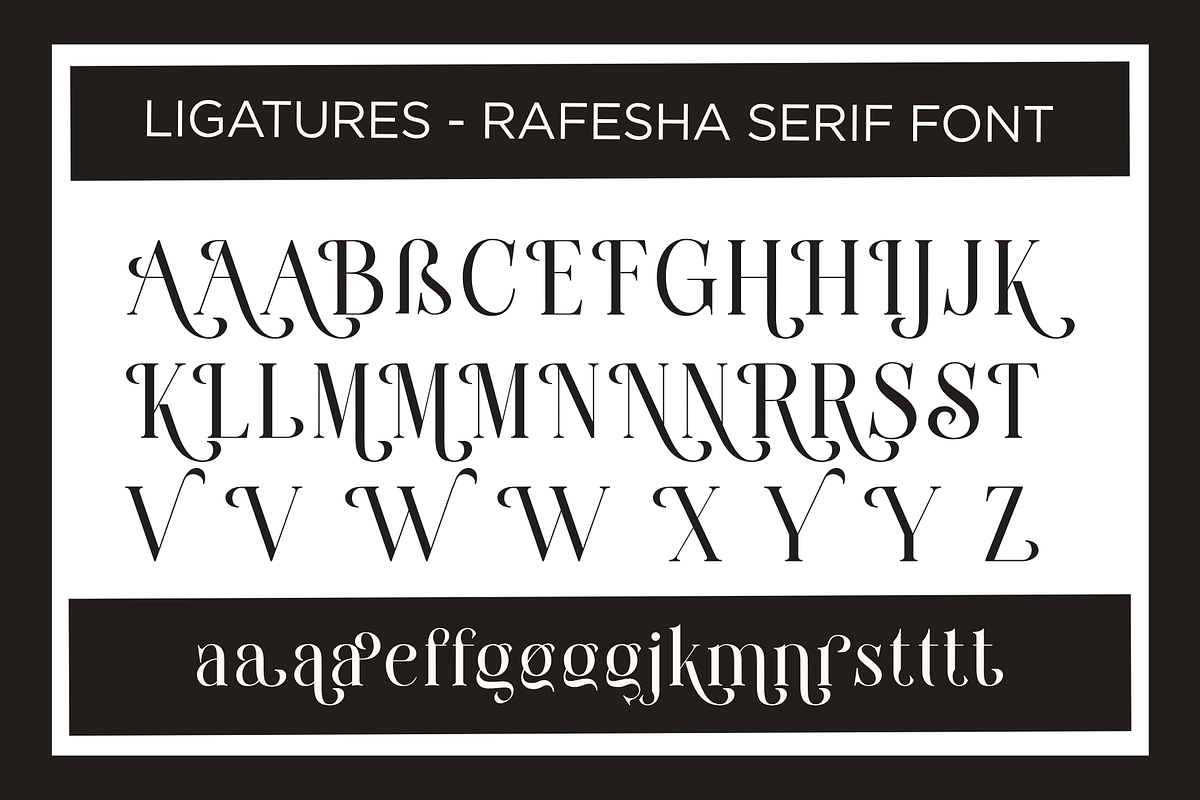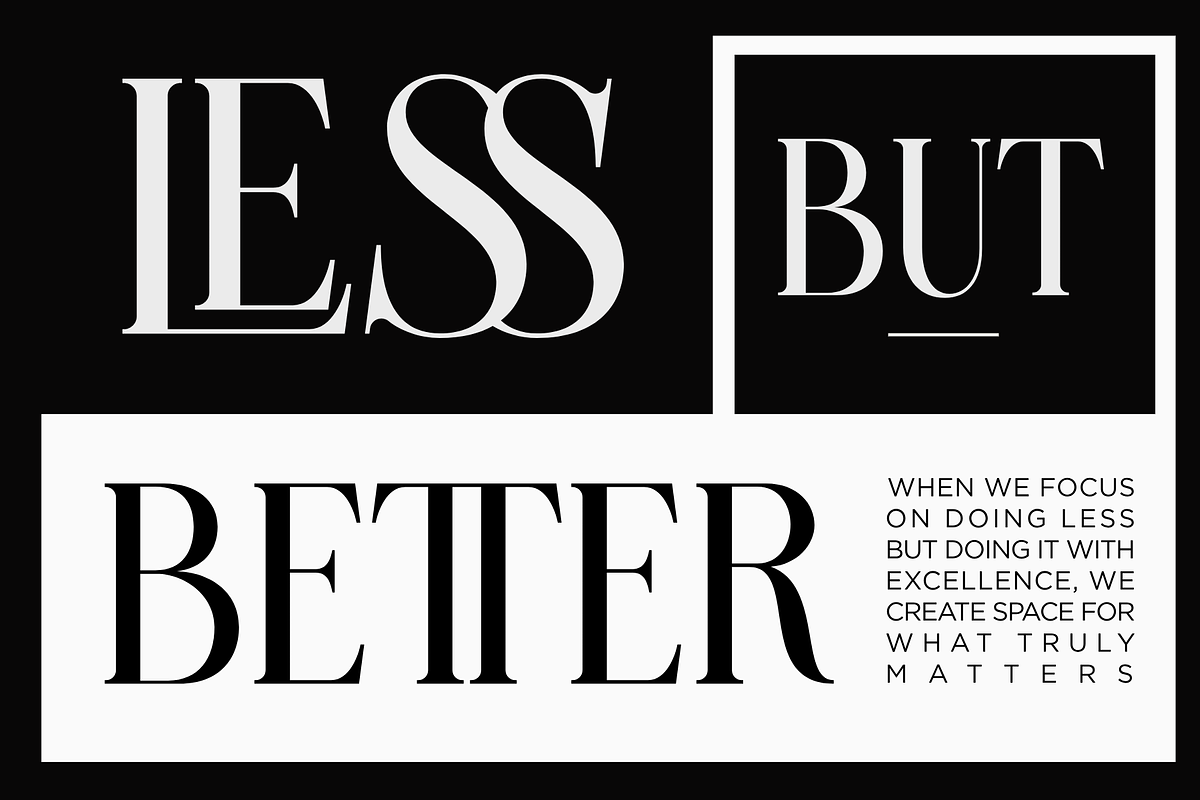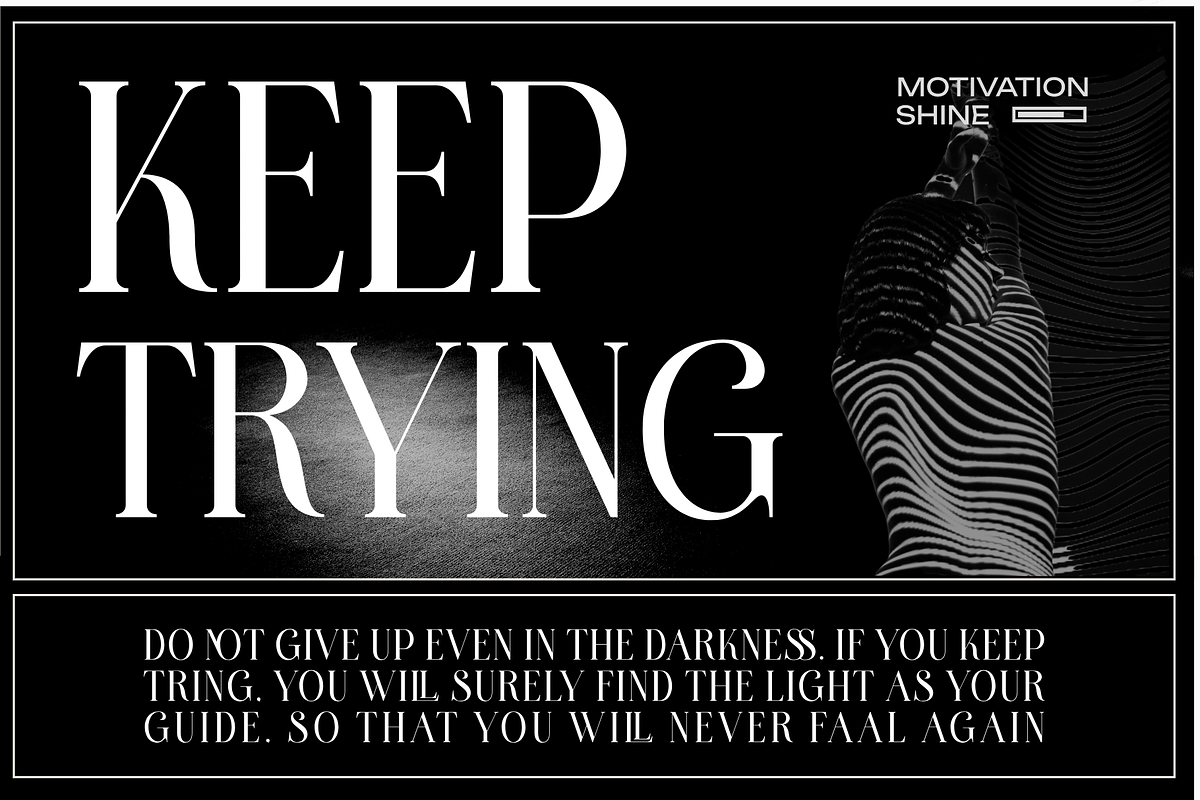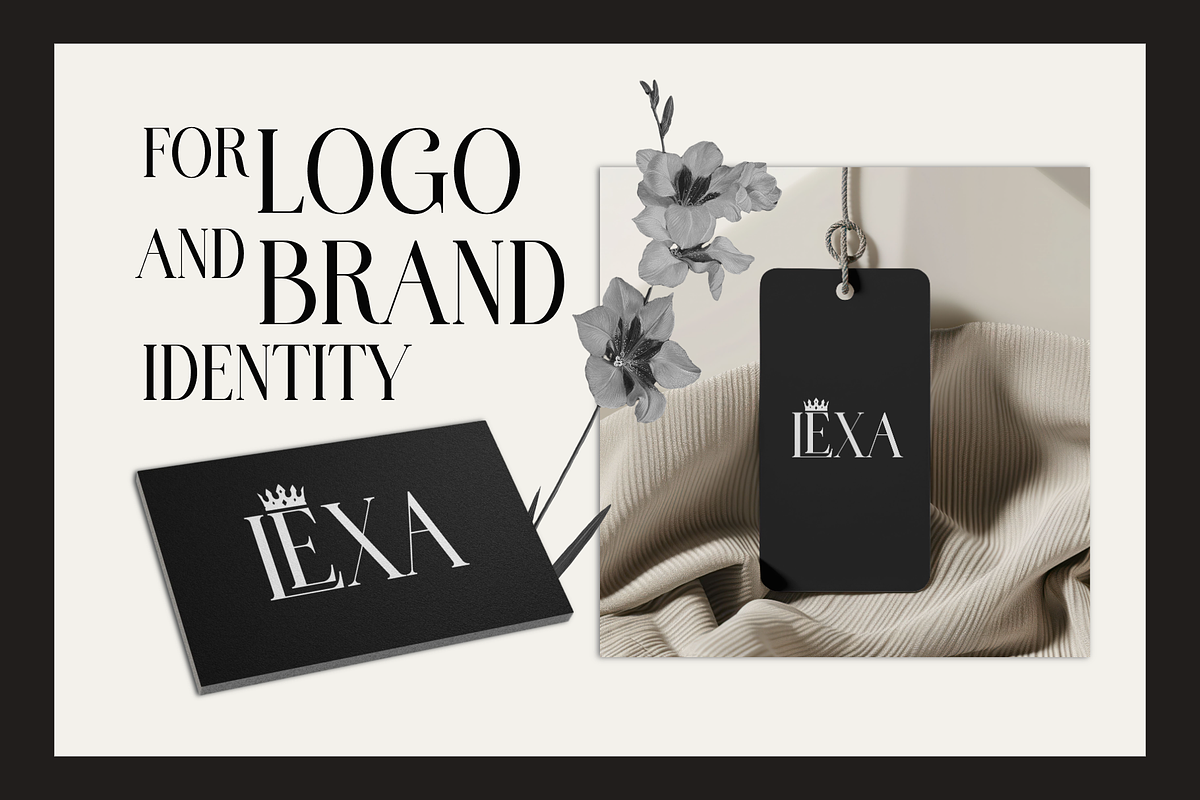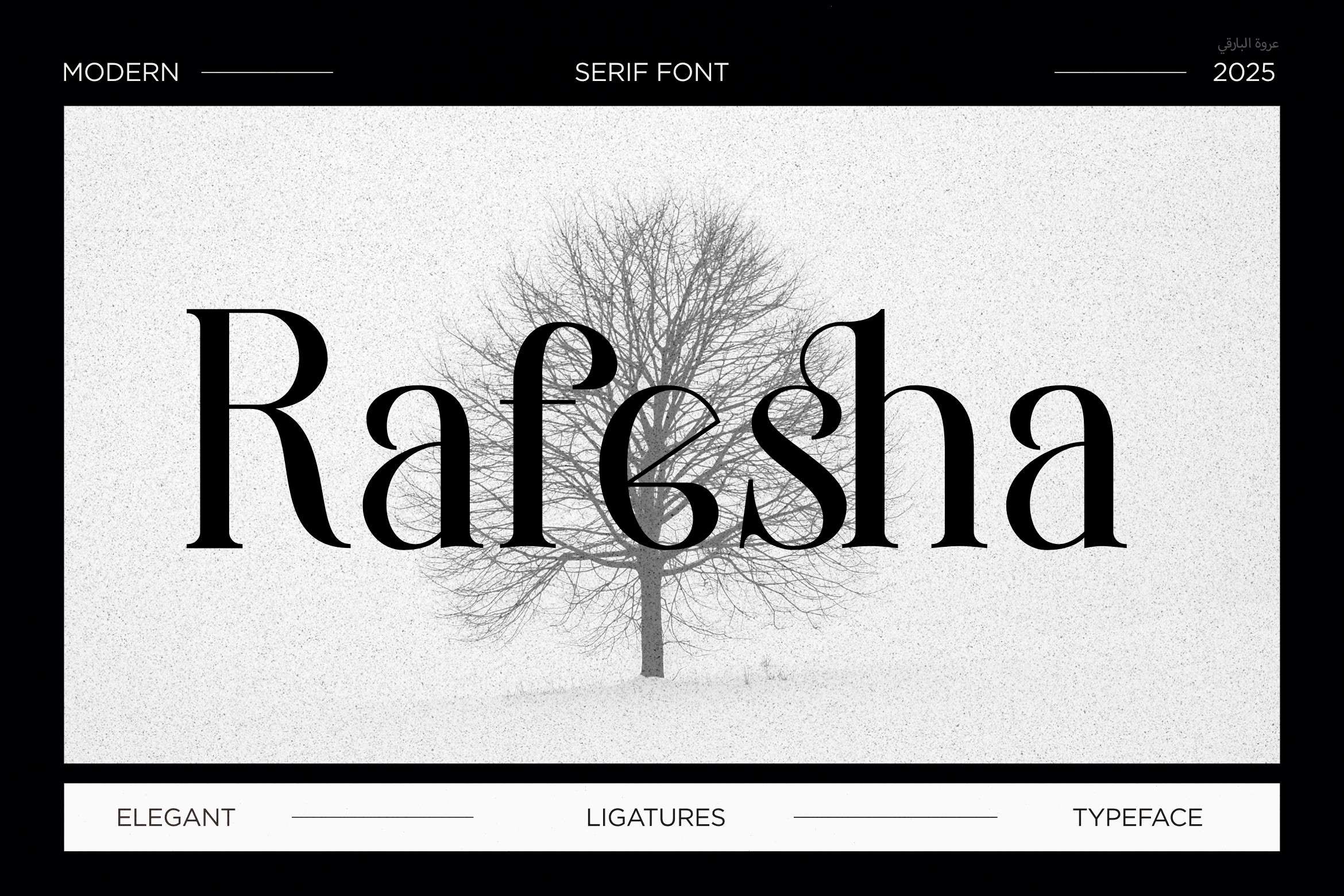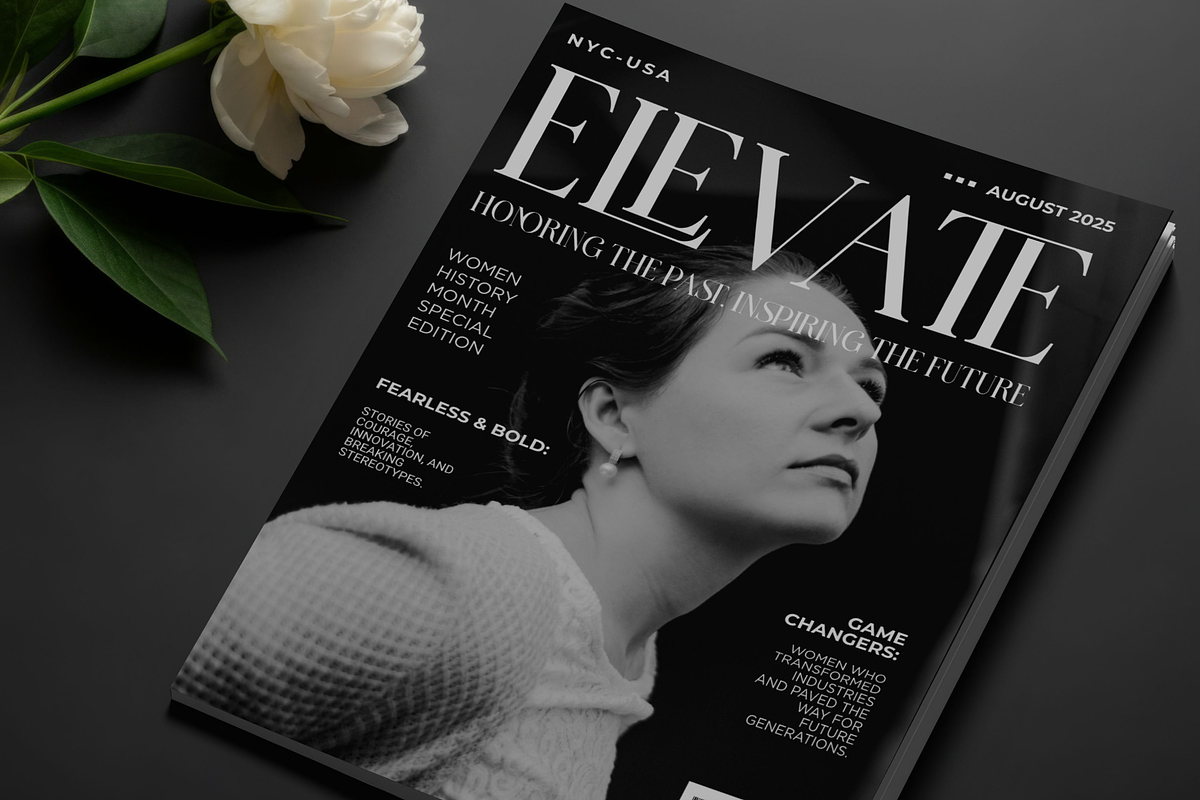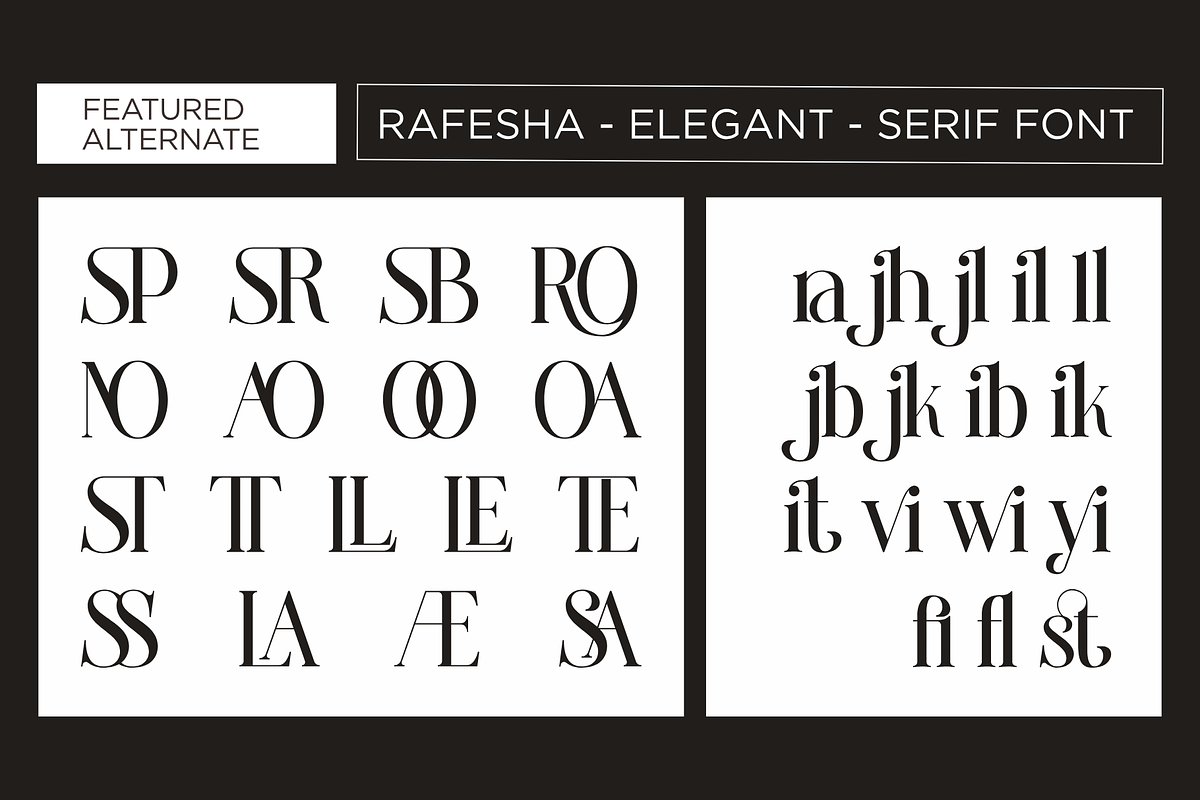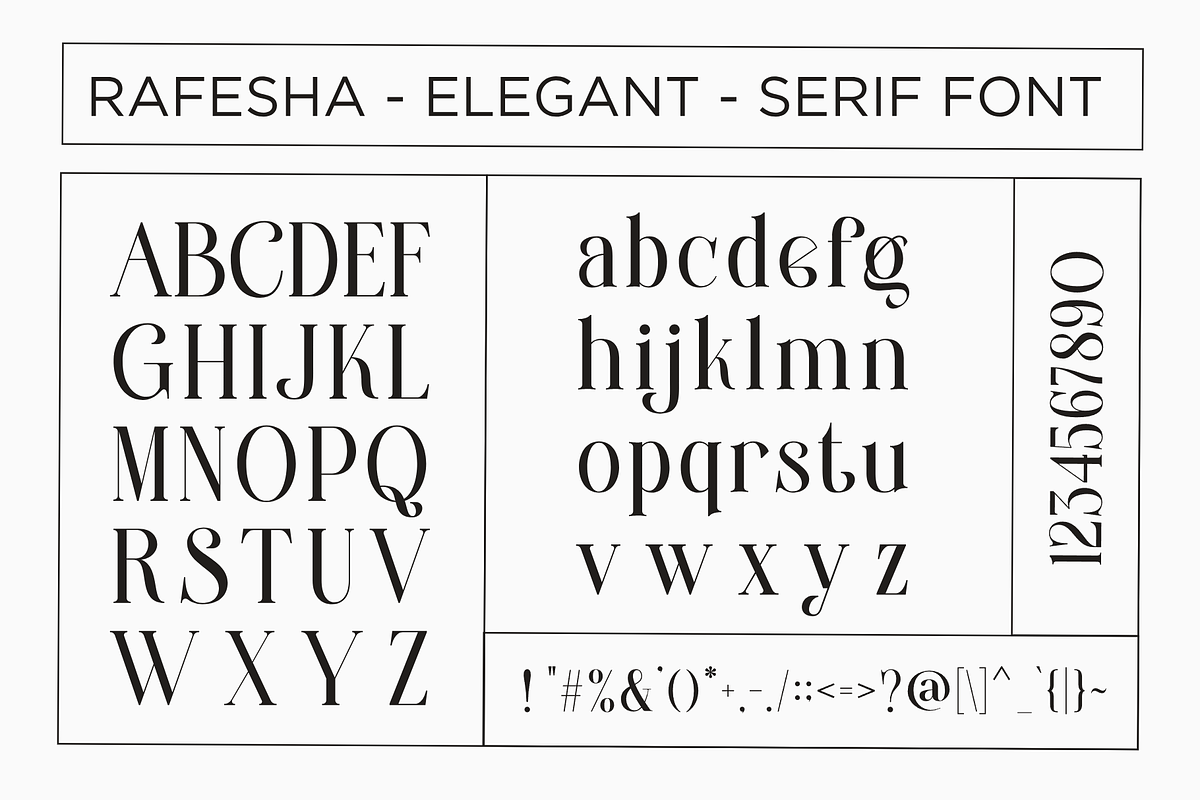
Rafesha Modern Serif Font
Rafesha Modern Serif Font – A Timeless and Elegant Typeface
Rafesha Modern Serif Font combines sophistication and modernity. Designed to elevate your branding projects, it blends classic elegance with contemporary style. This versatile font is perfect for logos, websites, advertisements, and more. Whether you’re working on a high-end fashion brand or a boutique café, Rafesha enhances your design with its clean, refined look.
Key Features of Rafesha Font
Modern Serif Design Rafesha features sleek, proportional letterforms that strike a balance between tradition and modernity. Its clean lines and classic serifs bring both elegance and readability to your work. This font is perfect for projects that require both style and clarity.
Functional Ligatures The carefully crafted ligatures in Rafesha add flair to your typography. They help create smooth connections between letters, enhancing readability while offering a unique visual appeal. Whether used in body text or headlines, these ligatures bring your designs to life.
Proportional Spacing Each letterform is spaced perfectly to ensure that your text remains legible and polished. Whether you’re working on a logo or a long paragraph, Rafesha maintains a consistent and professional look across all media.
Why Choose Rafesha?
Rafesha offers more than just a beautiful appearance—it’s a versatile tool for designers. Whether you're creating a logo, crafting a website, or designing product labels, Rafesha adapts to every project. It’s suitable for both print and digital designs, making it the perfect font for a wide range of creative needs.
Perfect Applications for Rafesha Font
Branding & Logos Rafesha’s elegant design makes it ideal for crafting memorable logos that reflect the style and values of your brand.
Websites & Digital Projects Its modern style and clear letterforms ensure readability on screens, making it perfect for websites and blogs.
Magazines & Editorials With its balanced proportions and functional ligatures, Rafesha works beautifully in both print and digital publications.
Packaging & Products Whether you're designing labels for luxury products or crafting packaging for a boutique, Rafesha adds